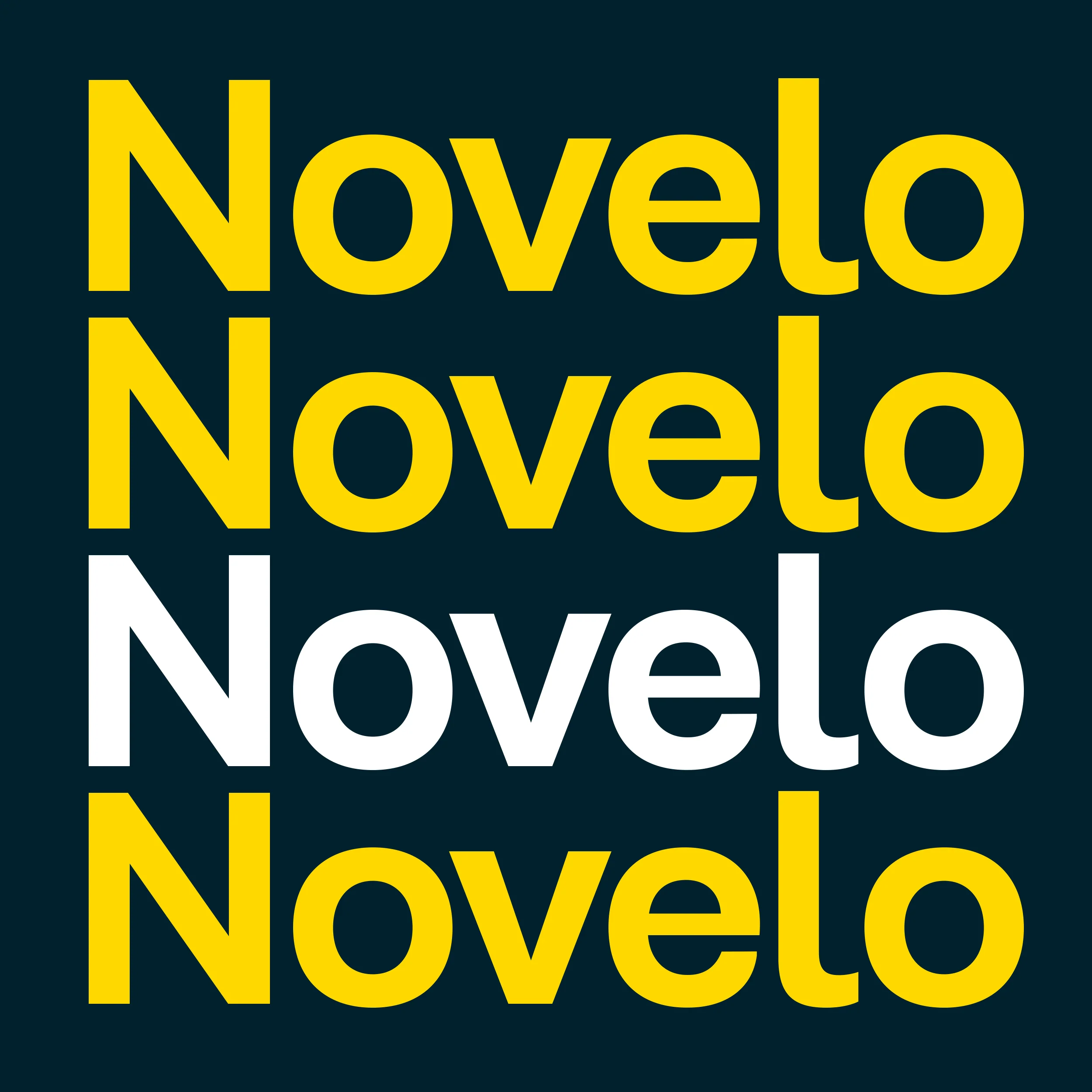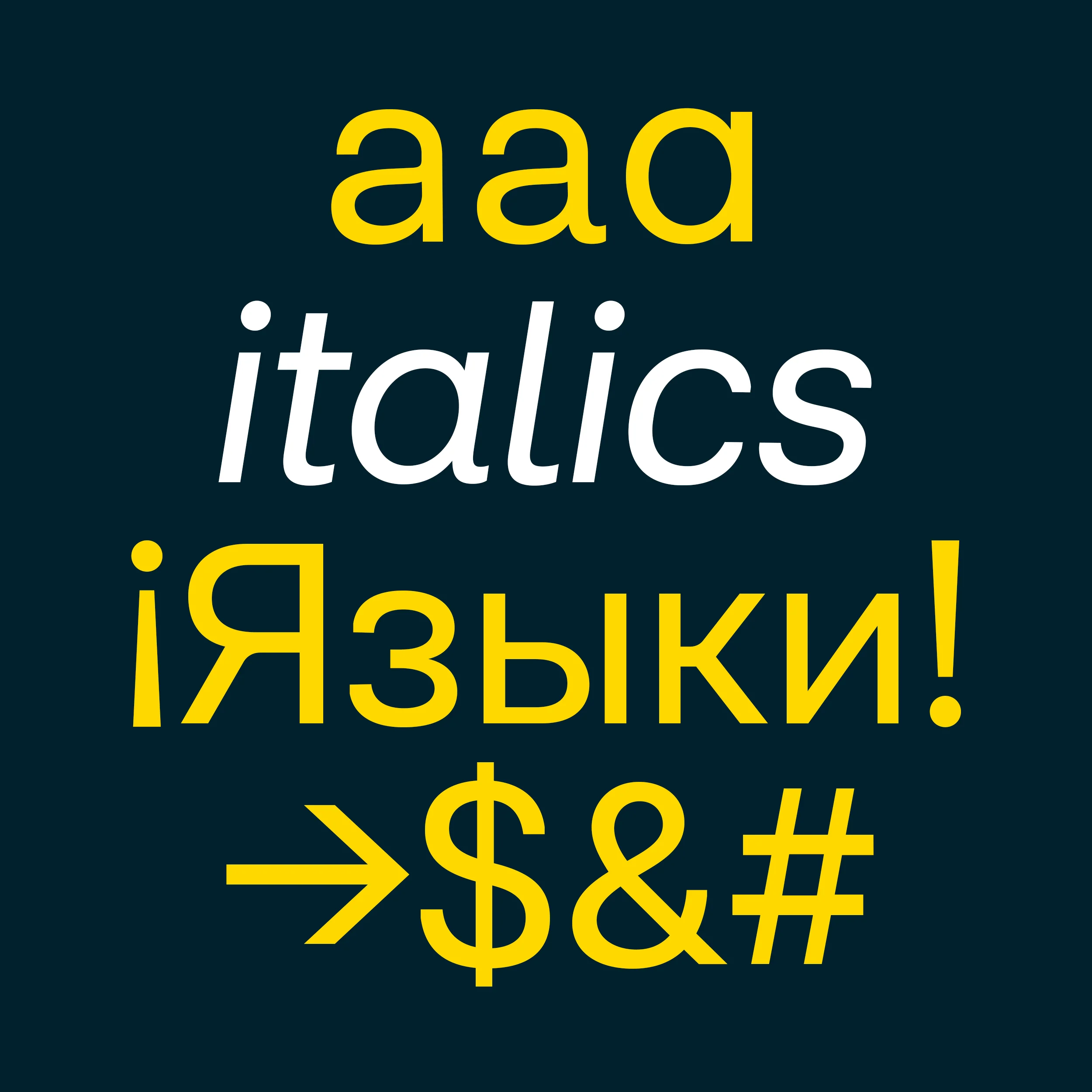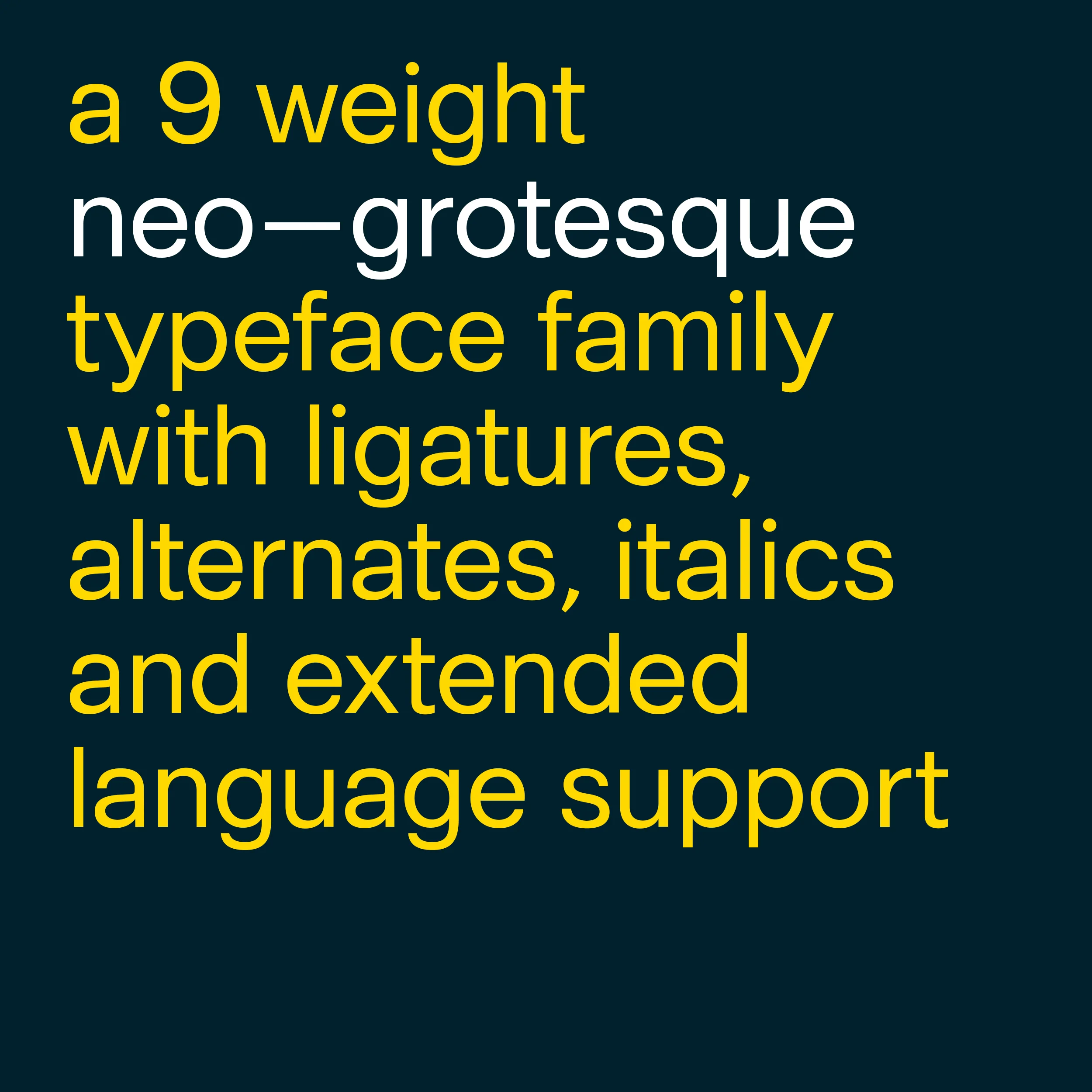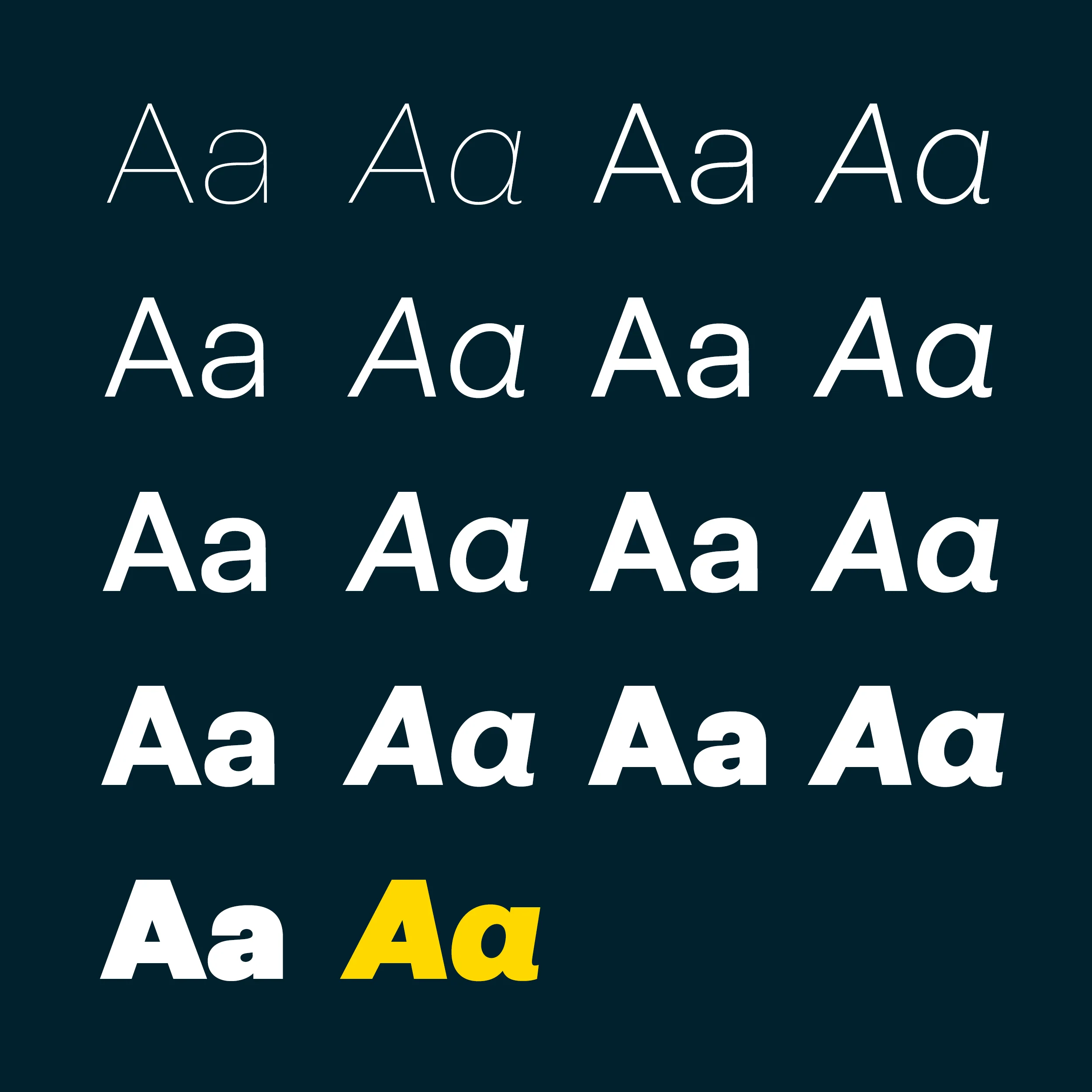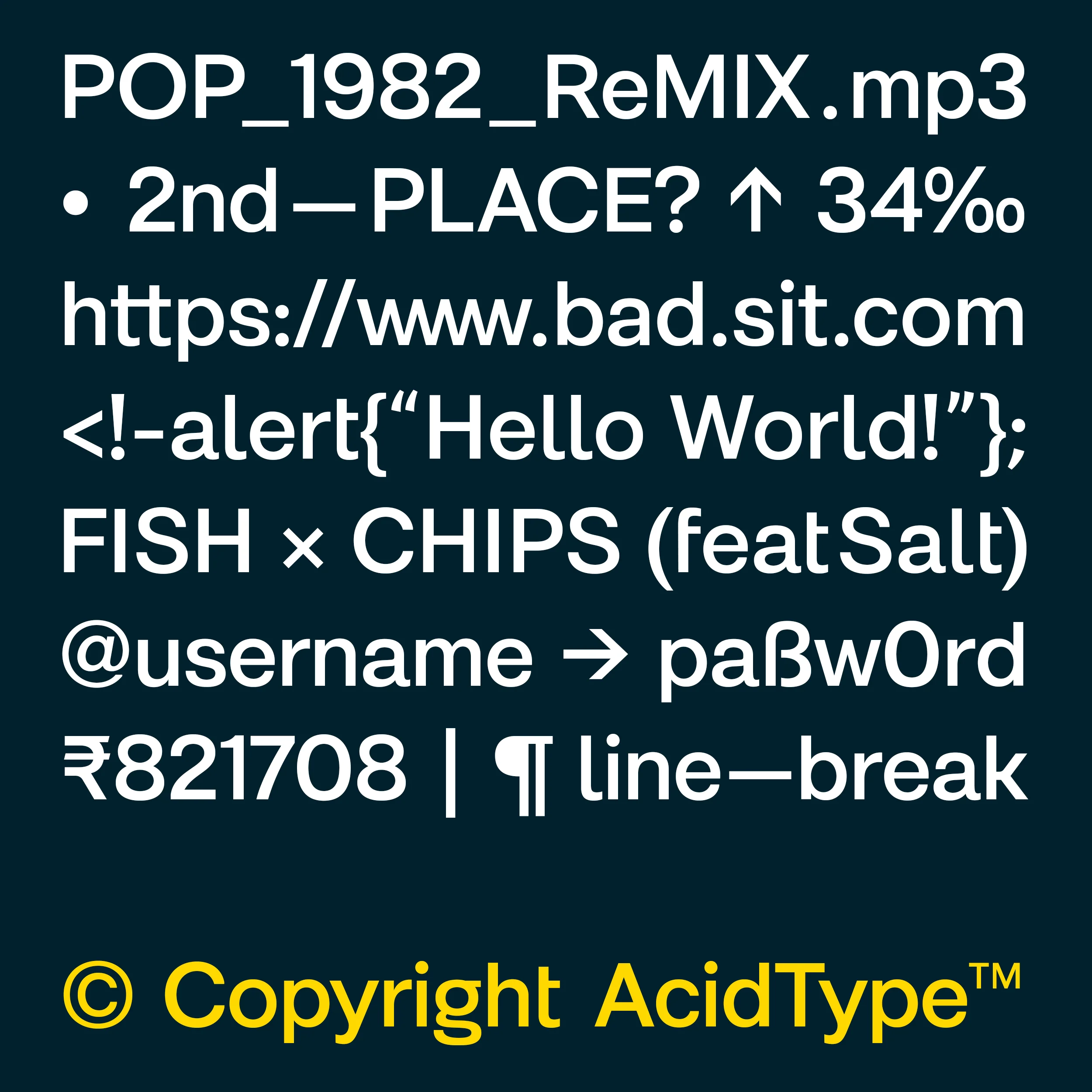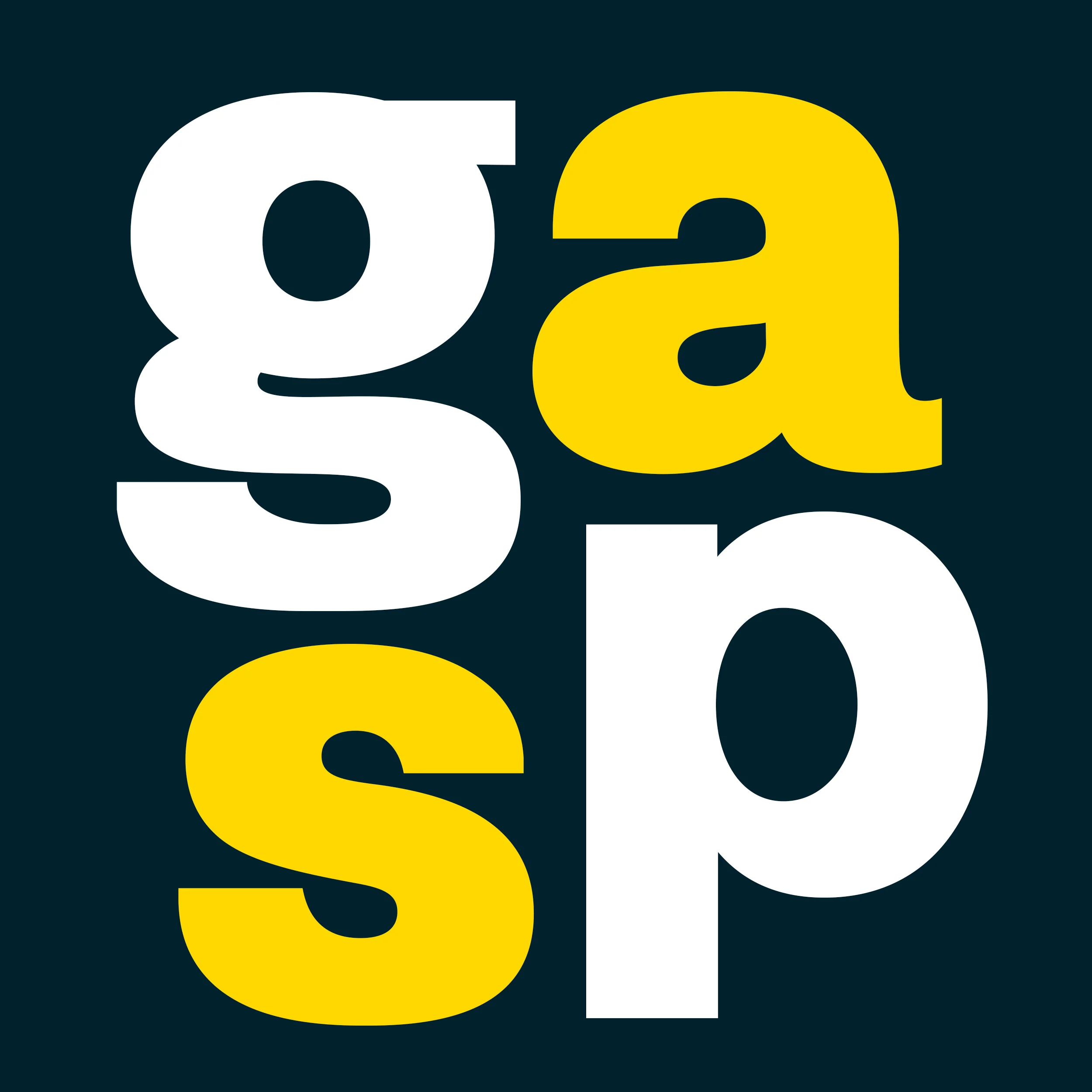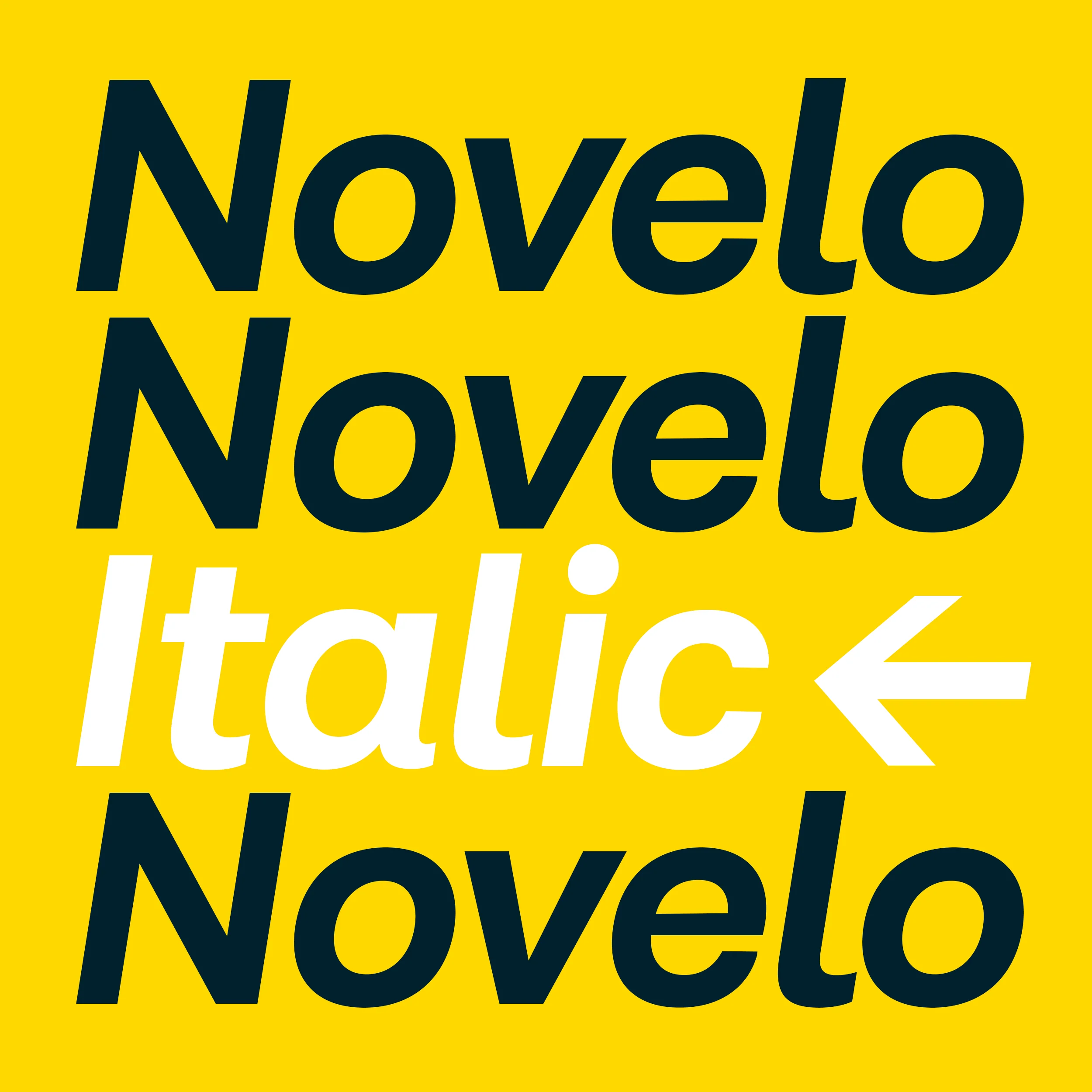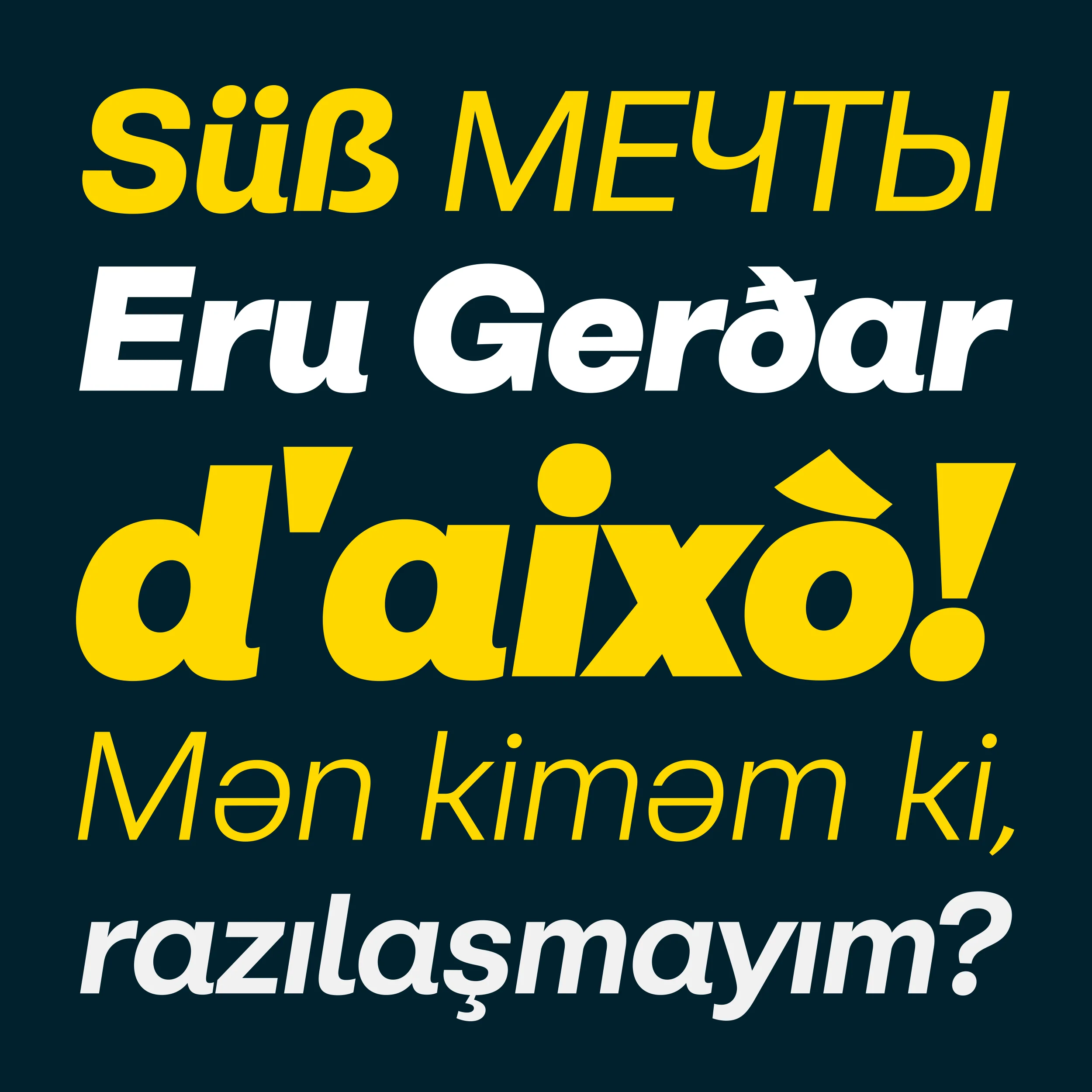
Novelo Regular
Novelo is a meticulously crafted neo-Grotesk typeface designed to meet the demands of contemporary designers. With comprehensive language support, an extensive selection of alternate characters, and optional ligatures across nine weights, Novelo offers unparalleled flexibility and versatility.
Engineered for legibility on modern displays—even at a minuscule 3pt—and equally stunning in print, Novelo stands out with its uniquely rotund counters, apertures, and bowls, setting it apart within its genre.Â